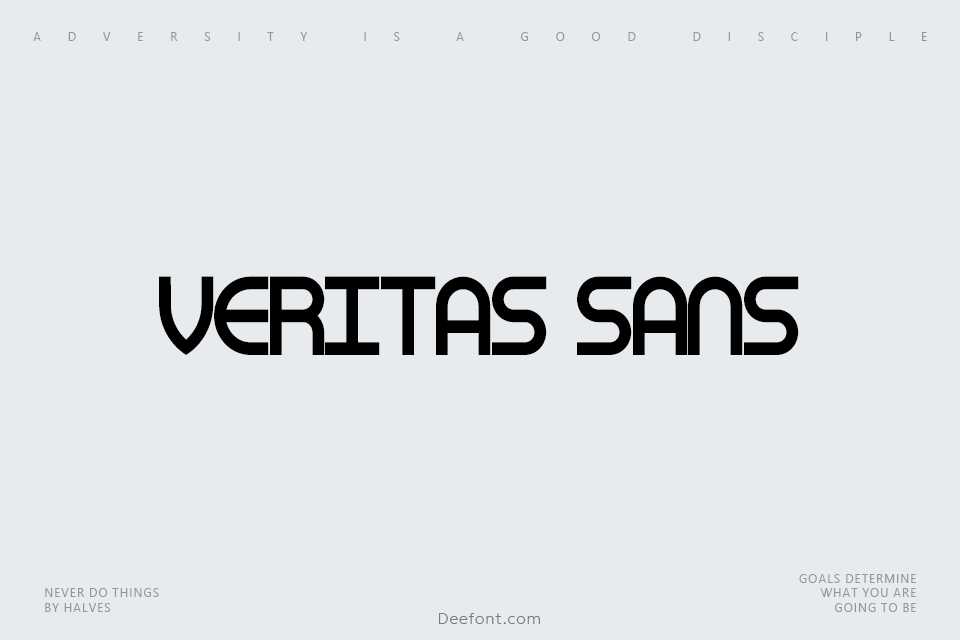
Veritas Sans Font
Veritas Sans is a contemporary sans-serif typeface that combines clean geometric forms with Japanese-inspired design elements. This modern, minimalist font features sleek letterforms and excellent readability, making it ideal for branding, web design, corporate communications, and creative projects. With its balanced proportions and sophisticated structure, Veritas Sans brings both elegance and functionality to any typographic application.